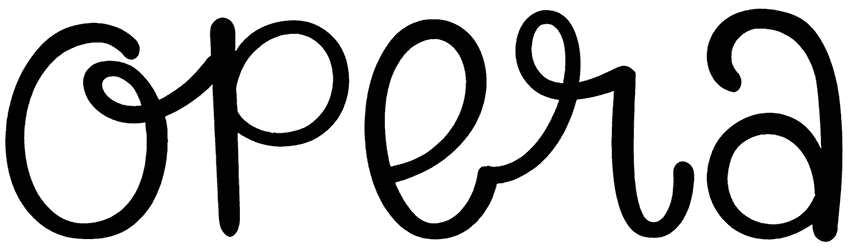
Opera Font
Designed byMustakim
The Opera font is a fun and wacky cartoon font that will give your work a charming touch. This invitation font is great for injecting a little levity into your designs because of its interesting mix of uppercase and lowercase characters.